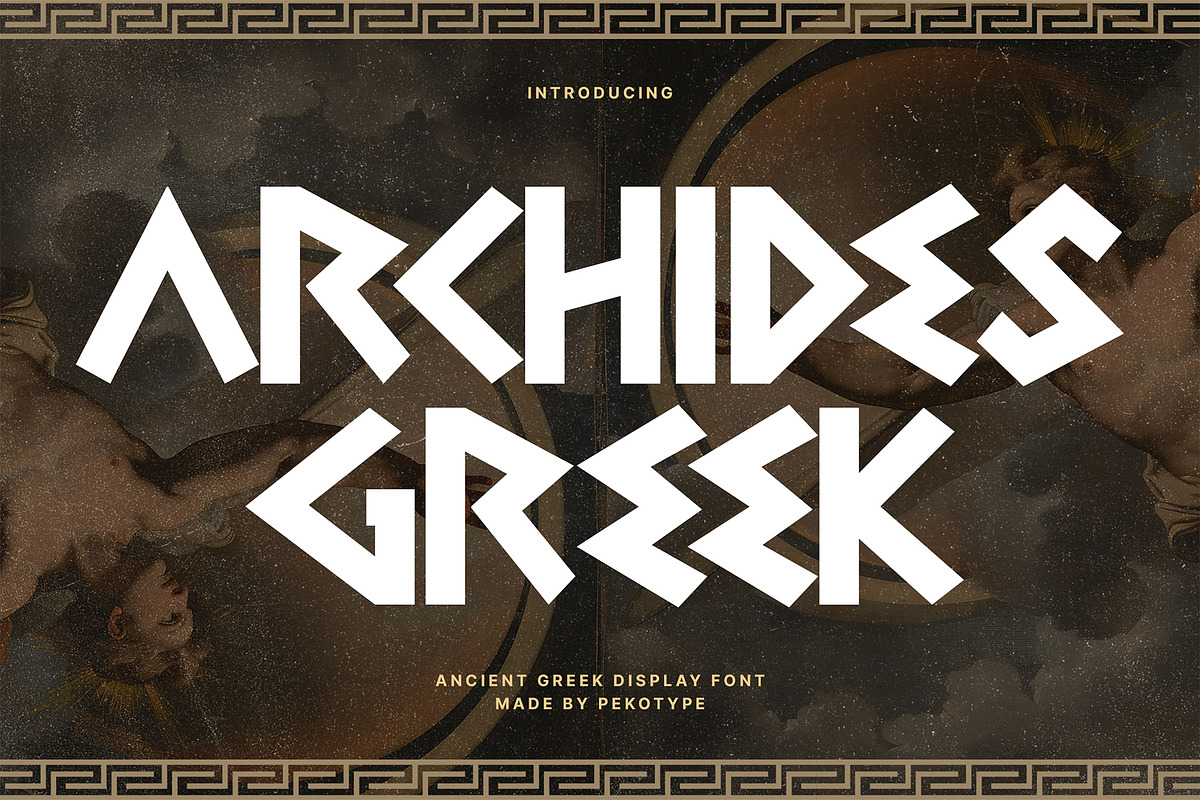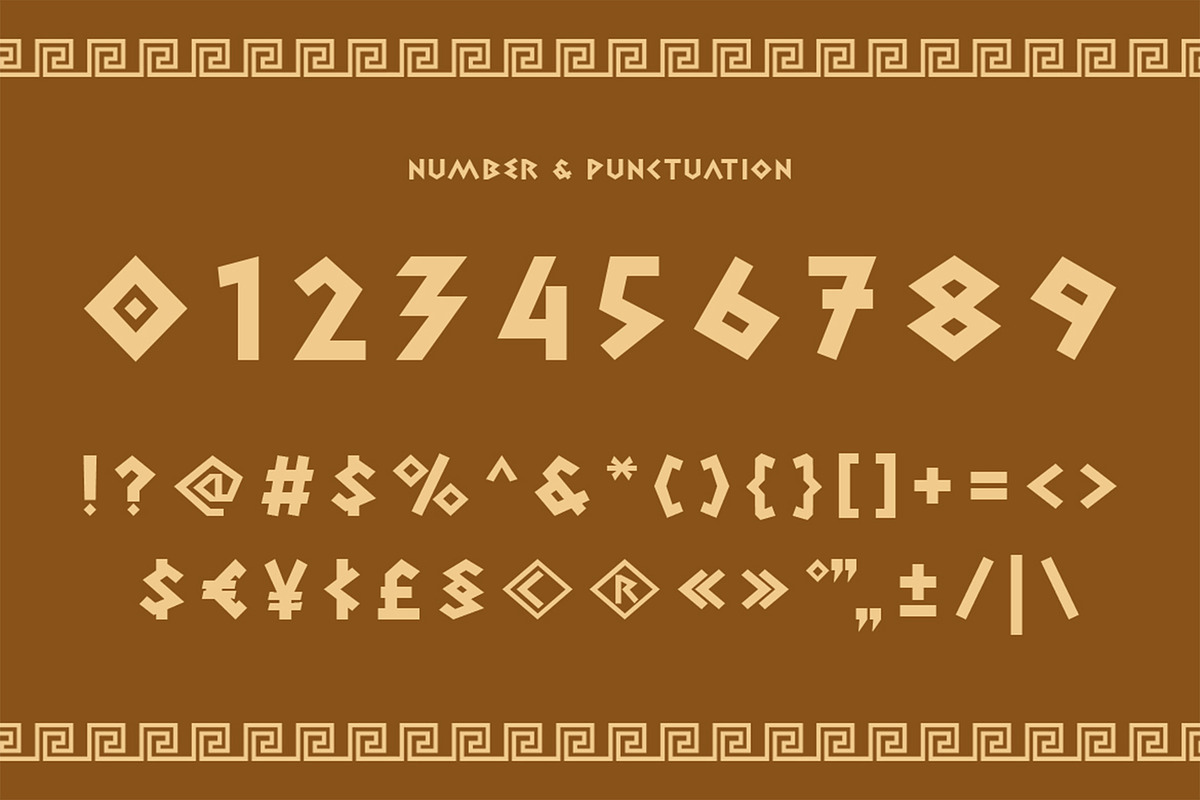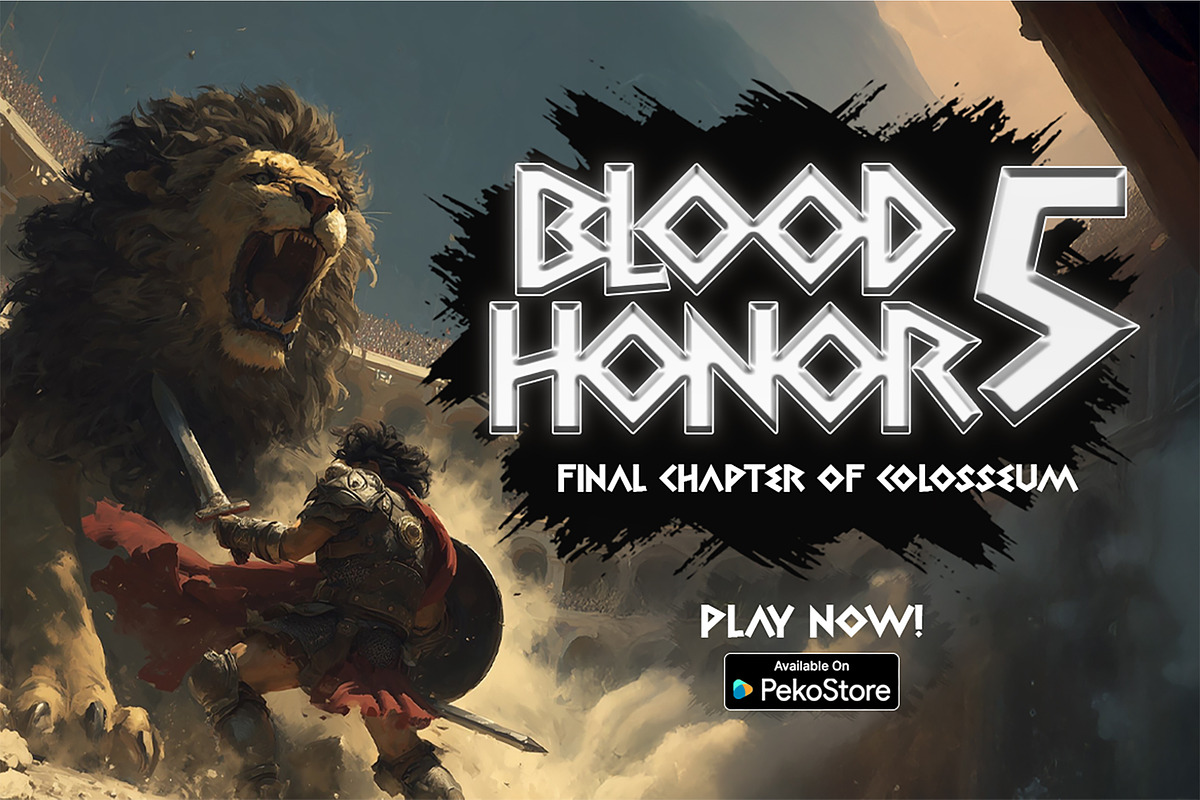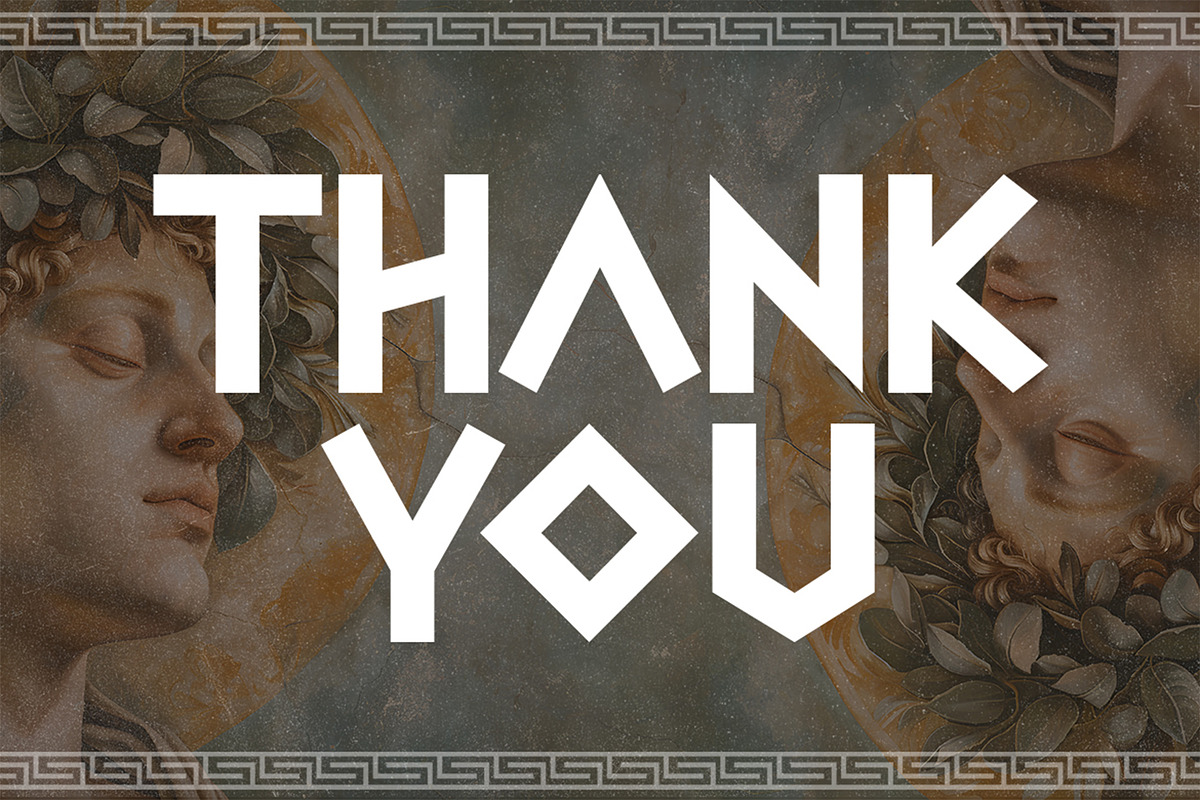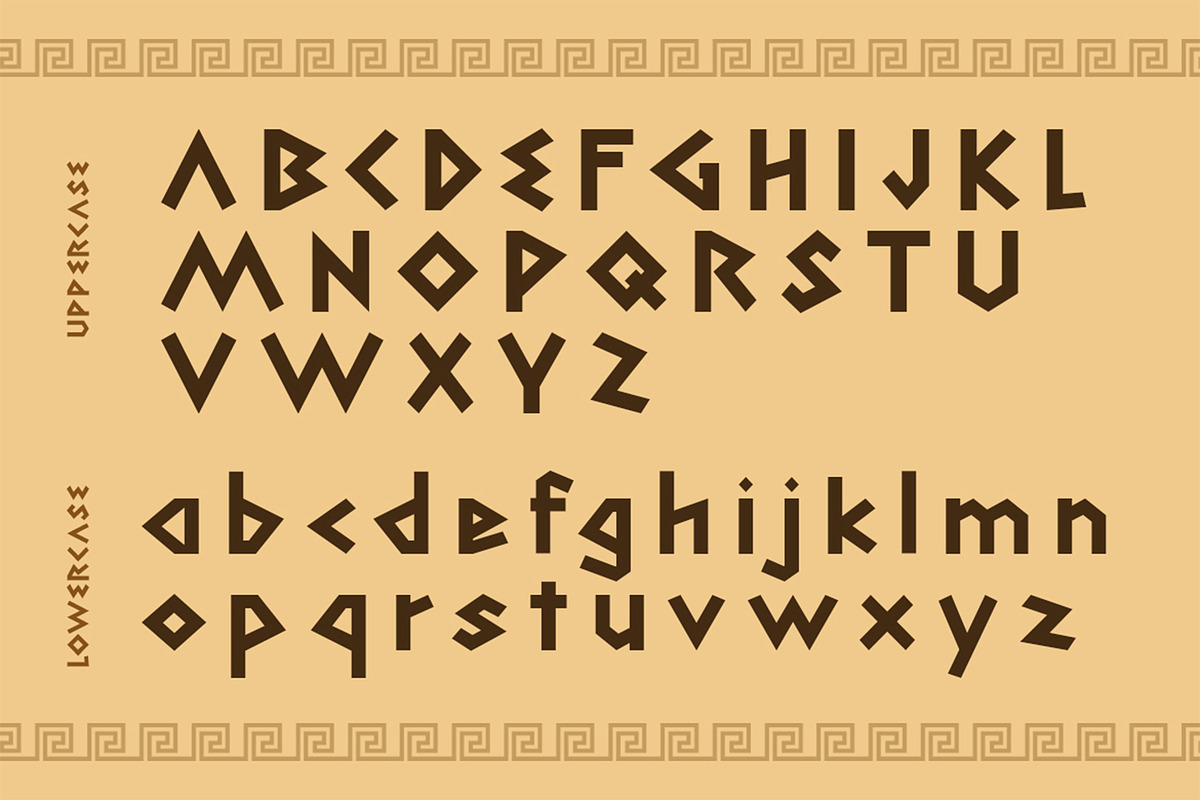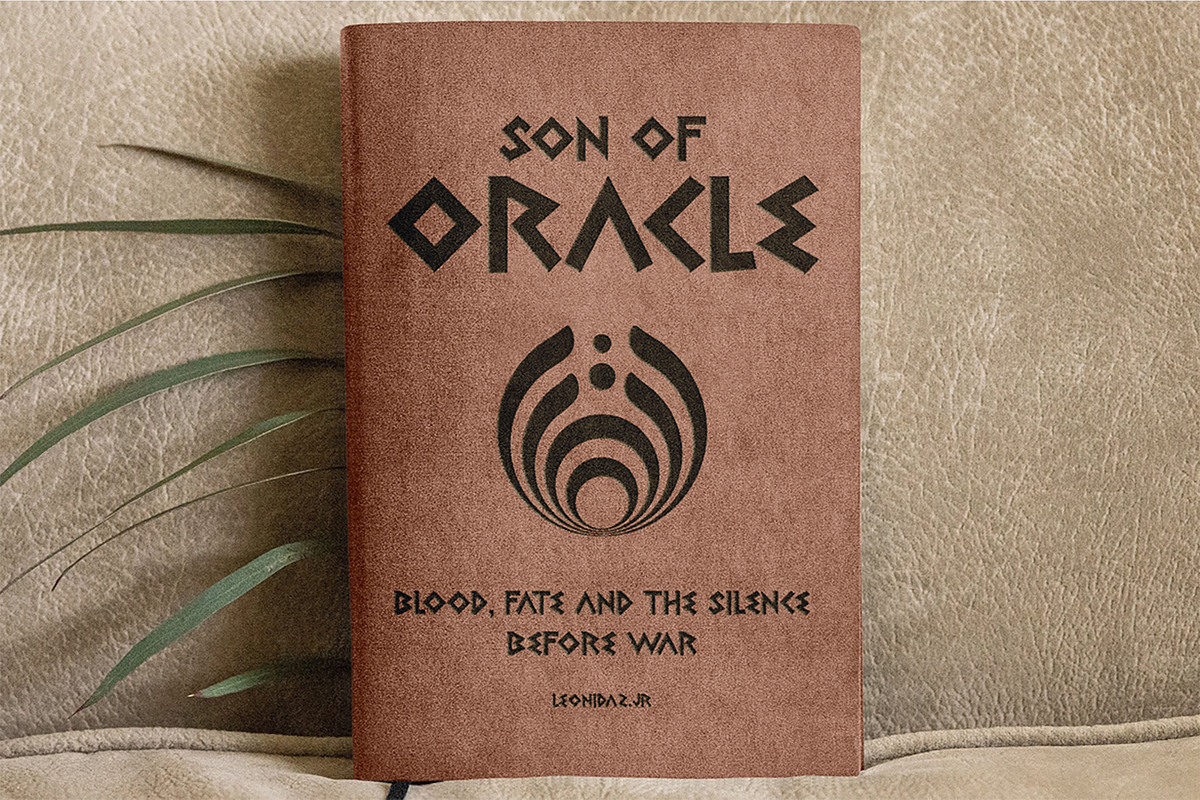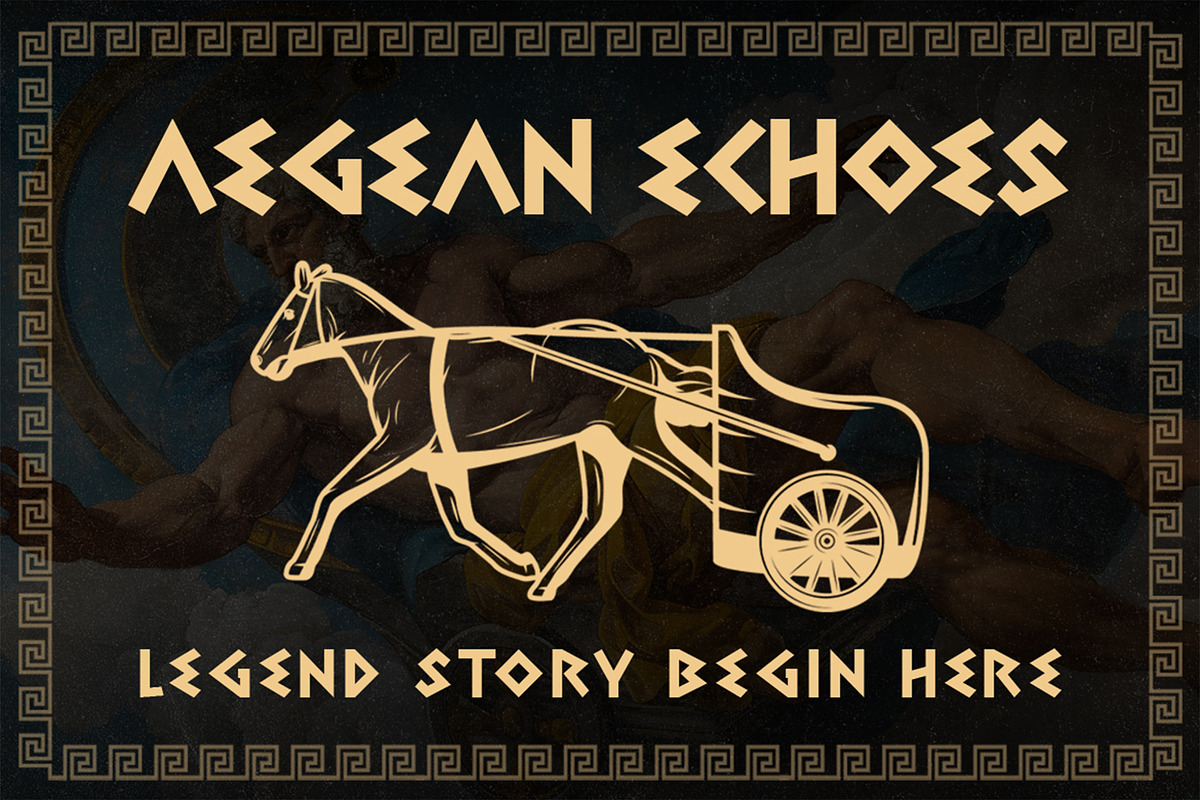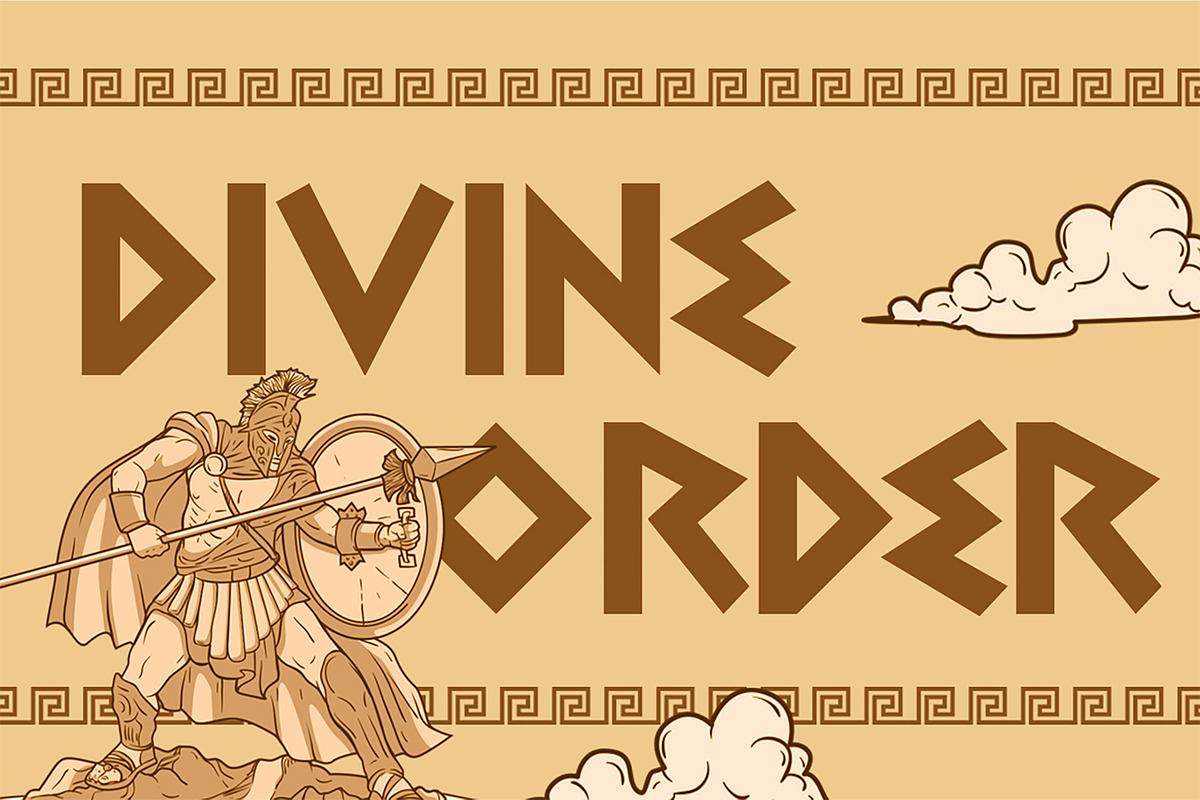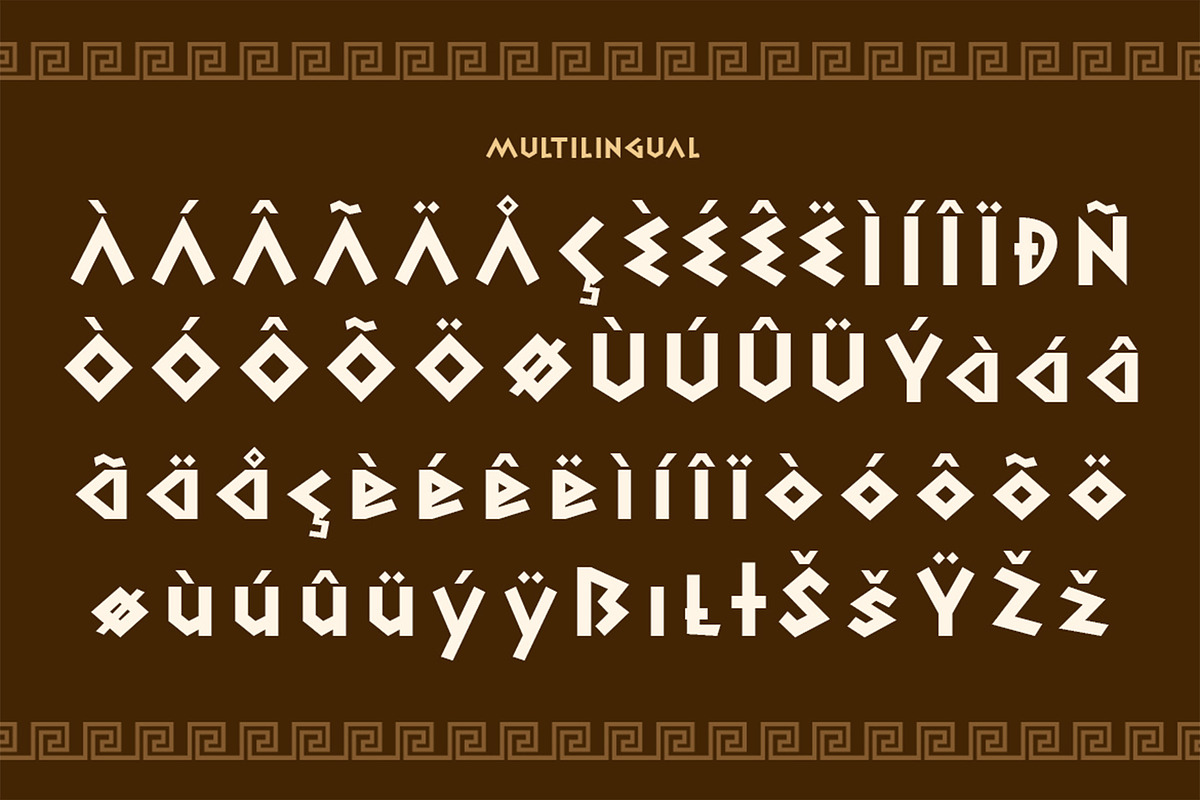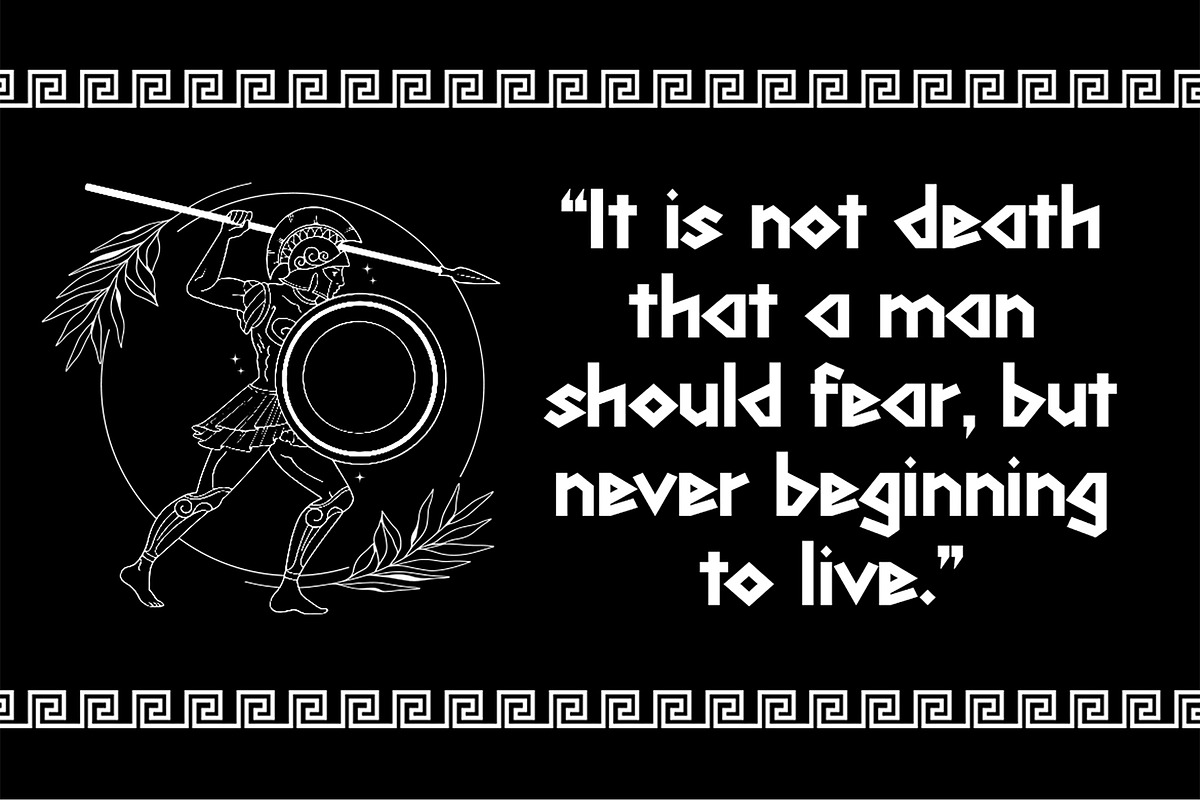
Archides- Ancient Greek Display Font
Archides – Bold Ancient Greek Display Font for Timeless Designs
Step into the grandeur of classical civilization with Archides, a bold and unique ethnic display font inspired by the legendary forms of ancient Greek lettering. Every stroke is carefully crafted to capture the strength, mystique, and artistry of Hellenic culture, making it perfect for projects that demand a powerful visual presence.
With its geometric edges and distinctive shapes, Archides is ideal for branding, logo design, game titles, movie posters, promotional materials, and social media content. Whether you’re designing for a historical theme, an epic fantasy, or a modern brand with a touch of antiquity, Archides brings an unmistakable cultural richness to your typography.